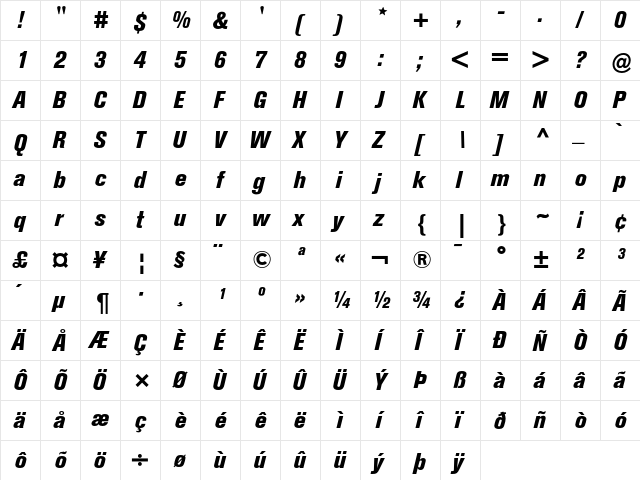
Berthold Akzidenz Grotesk BE Extra Bold Condensed Italic Font Preview
Design Context for Berthold Akzidenz Grotesk BE Typeface
Berthold Akzidenz Grotesk BE takes a clean, functional approach — its unadorned letterforms prioritise legibility and work reliably across screen and print environments. The slanted form adds forward momentum and visual energy. Its bold stroke weight gives it real presence on the page. The condensed width makes it efficient for tight spaces without sacrificing legibility.
A strong choice for UI design, app interfaces, bold signage, and corporate brand systems.
Font Pairing: Use Berthold Akzidenz Grotesk BE for headlines alongside a lighter-weight sans or serif for body copy to establish clear visual hierarchy.
Pro Tip: Try Berthold Akzidenz Grotesk BE in all-caps with moderate tracking for navigation and label copy — it performs well in systematic UI contexts.